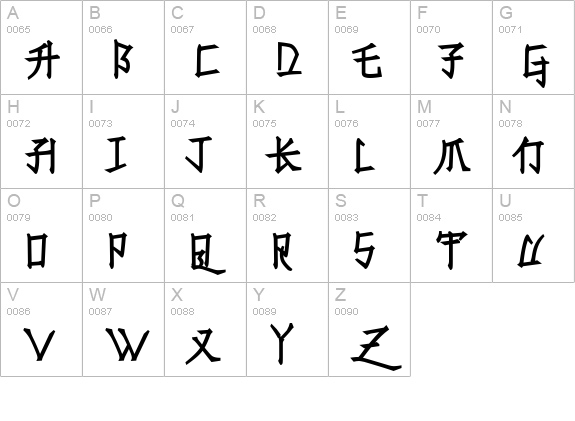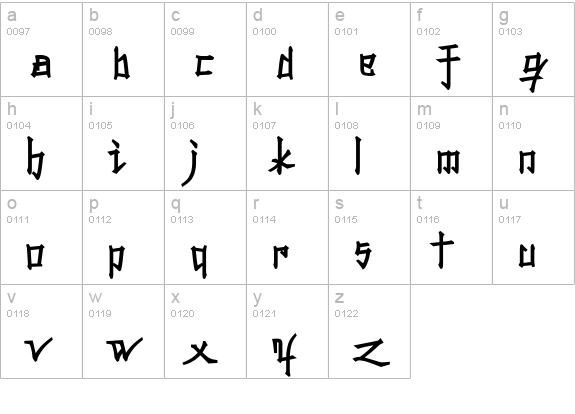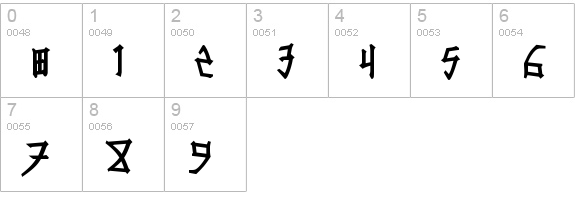
Konfuciuz Fat Font Details
Konfuciuz Fat font is a bold and eye-catching typeface that exudes confidence and modernity. With its thick, heavy strokes and rounded edges, this font is perfect for making a statement in headlines, posters, logos, and more. The strong presence of Konfuciuz Fat font commands attention and leaves a lasting impression on the viewer. What's even better is that Konfuciuz Fat font is completely free to download at FontsMarket.com. You can easily access this striking font and enhance your design projects without any cost. Take advantage of this opportunity to add a touch of boldness and style to your creations with Konfuciuz Fat font.